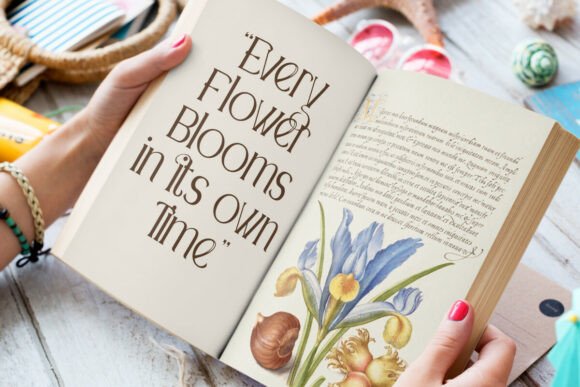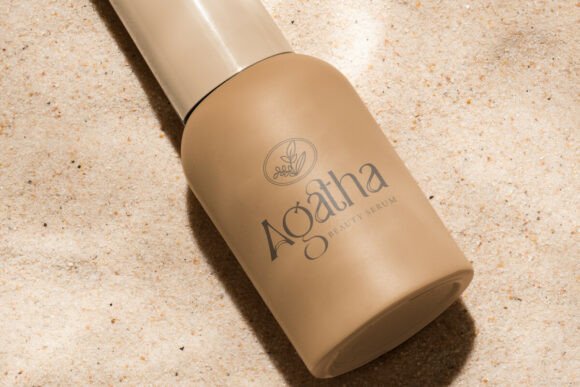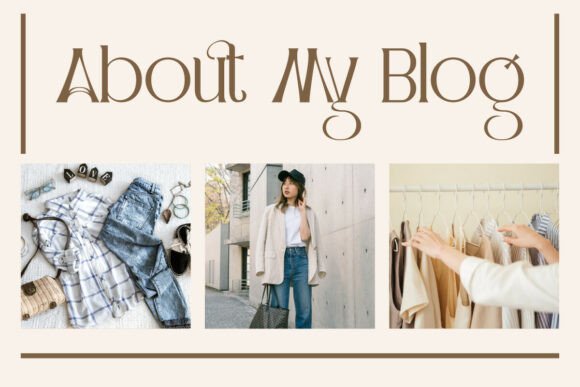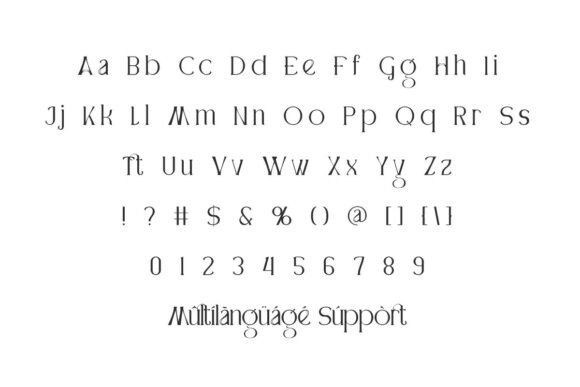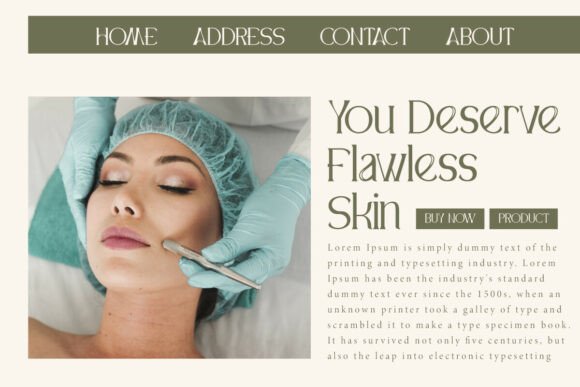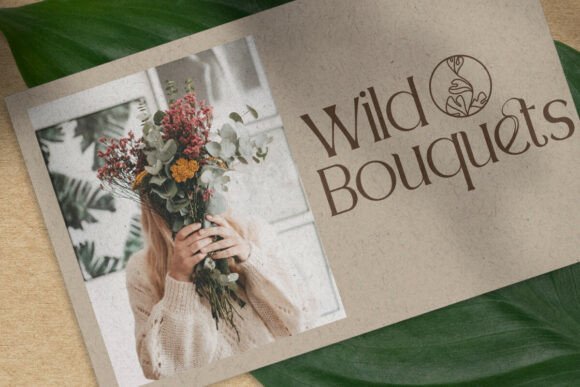
Introducing Amagarapati Font: Elevate Your Designs with a Touch of Vintage Elegance
In the world of typography, fonts play a crucial role in conveying the tone and personality of a design. For designers and crafters looking to add a unique touch to their projects, Amagarapati Font is an excellent choice. This vintage display font boasts a distinctive serif shape that sets it apart from other fonts, making it perfect for those seeking to infuse their designs with elegance and quirkiness.
The Unique Characteristics of Amagarapati Font
Amagarapati Font is not just another serif font; it’s a custom bolted font that offers a perfect blend of sophistication and playfulness. Its vintage feel is reminiscent of classic typography, while its unique design elements ensure it stands out in any design. Whether you’re working on a modern project or something more traditional, Amagarapati Font can add a touch of personality that elevates your design from ordinary to extraordinary.
One of the key advantages of Amagarapati Font is its versatility. This font is not limited to a specific type of project; rather, it can enhance a wide range of design explorations. Here are some of the many ways you can use Amagarapati Font:
- Banners: Create eye-catching banners for events, sales, or promotions with a font that commands attention.
- Blogs: Add a touch of elegance to your blog headers or titles, making your content stand out.
- Brochures: Use Amagarapati Font for headings or titles in brochures to grab the reader’s attention.
- Card Designs: Whether it’s a business card, greeting card, or invitation, this font adds a personal touch.
- Covers: Book covers, magazine covers, or any other type of cover design can benefit from the unique look of Amagarapati Font.
- Headers and Headlines: Make your website or publication headers and headlines pop with this distinctive font.
- Invitations: Weddings, parties, or formal events can have a touch of sophistication with Amagarapati Font.
- Labels: Product labels or any kind of label design can stand out with this font.
- Stationery: Elevate your letterheads, notebooks, or any stationery items with a touch of vintage elegance.
- Titles: Movie titles, video titles, or any kind of title can have a professional yet unique look.
- Websites: Use Amagarapati Font for headings or titles on your website to give it a distinctive look.
Why Choose Amagarapati Font?
Choosing a font for your design project can be overwhelming, given the numerous options available. However, Amagarapati Font stands out for several reasons:
- Unique Design: Its custom bolted design and serif shape offer a uniqueness that’s hard to find.
- Elegance and Quirkiness: It combines sophistication with a playful touch, making it suitable for a wide range of projects.
- Versatility: As mentioned, it’s suitable for various types of designs, from digital to print.
- Easy to Read: Despite its unique design, Amagarapati Font remains clear and easy to read, making it functional as well as stylish.
How to Get the Most Out of Amagarapati Font
To maximize the potential of Amagarapati Font, consider the following tips:
- Pair it with Other Fonts: Use Amagarapati Font for headings and pair it with a simpler font for body text to create contrast.
- Experiment with Sizes: Play around with different sizes to see how Amagarapati Font looks in various contexts.
- Adjust the Color: Choose colors that complement the vintage feel of the font, such as earth tones or metallic colors.
- Use it Sparingly: While Amagarapati Font is eye-catching, using it sparingly can make it more impactful.
Amagarapati Font is a unique addition to any designer’s toolkit. Its blend of vintage elegance and quirky design makes it perfect for a wide range of projects. Whether you’re looking to make a statement with a bold banner or add a touch of sophistication to your stationery, Amagarapati Font is an excellent choice. With its versatility, readability, and distinctive look, it’s sure to elevate your designs to the next level.